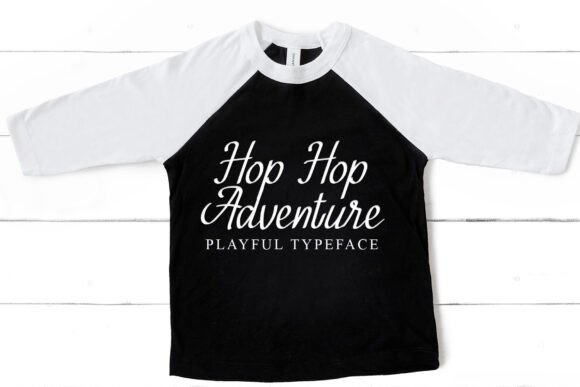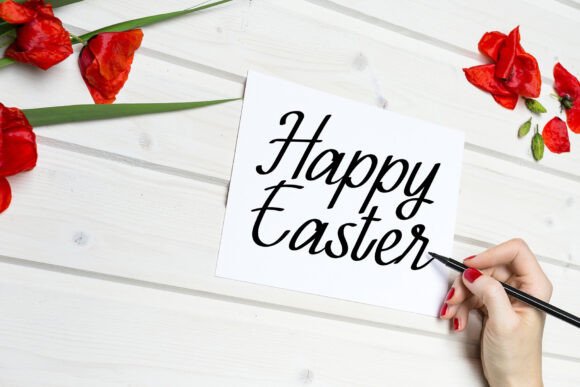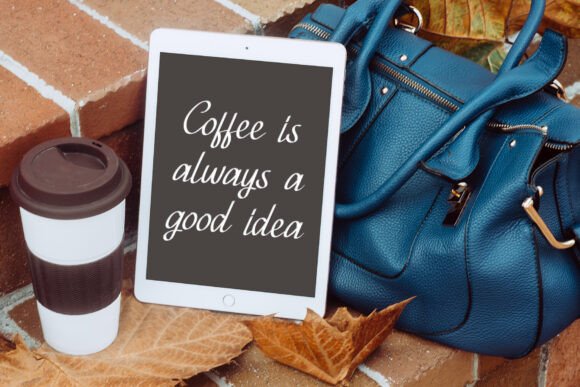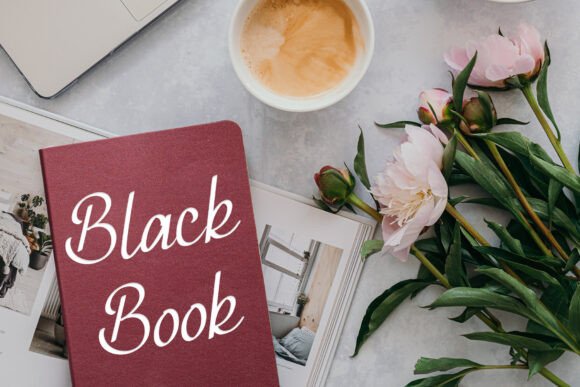
Unlock the Vibrant Beauty of Your Designs
Have you ever been in the middle of a creative project, and the perfect font just slips your mind? That’s where the magic of Beautiful Sunflower Font comes in – a unique and elegant design that adds a touch of sunshine to your work.
Beautiful Sunflower Font is more than just a typeface; it’s a way to elevate your projects and make them stand out. Whether you’re working on a wedding invitation, a birthday card, or a school assignment, this font is the perfect companion to bring your ideas to life. With its professional hand-crafted touch, it’s a valuable asset for designers looking to add a personal touch to their work.
Beautiful Sunflower Font Key Features
• Unique Characteristics: Hand-drawn, organic design with intricate details and subtle texture, giving it a natural and whimsical feel
Designer Review: Beautiful Sunflower Font
Overall, I think Beautiful Sunflower Font is a charming addition to any design project, especially those with a whimsical or vintage vibe. ✨ The font’s playful, hand-drawn feel immediately captures the viewer’s attention and invites exploration. The subtle imperfections and texture add a touch of authenticity that’s hard to find in digital fonts.
Here are some specific strengths of the font:
• ✨ Unique, eye-catching design that’s sure to stand out
• ✨ Versatile and suitable for a range of applications, from logos to body text
• ✨ Easy to read, even in smaller sizes
• ⚠️ Limited character set, which may cause issues for multilingual designs
• ⚠️ Some characters may not be perfectly legible at very small sizes
• ⚠️ May not be suitable for formal or professional designs
Overall, I think Beautiful Sunflower Font is a great choice for designers looking to add a touch of personality to their work. While it may have some limitations, its unique charm and versatility make it a valuable addition to any design toolbox.
Some tips for getting the most out of the Beautiful Sunflower Font include:
• Using it for headings and titles to add a touch of elegance and whimsy.
• Pairing it with other fonts to create a unique and eye-catching design.
• Using it for wedding invitations, baby shower invitations, and other special occasion designs.